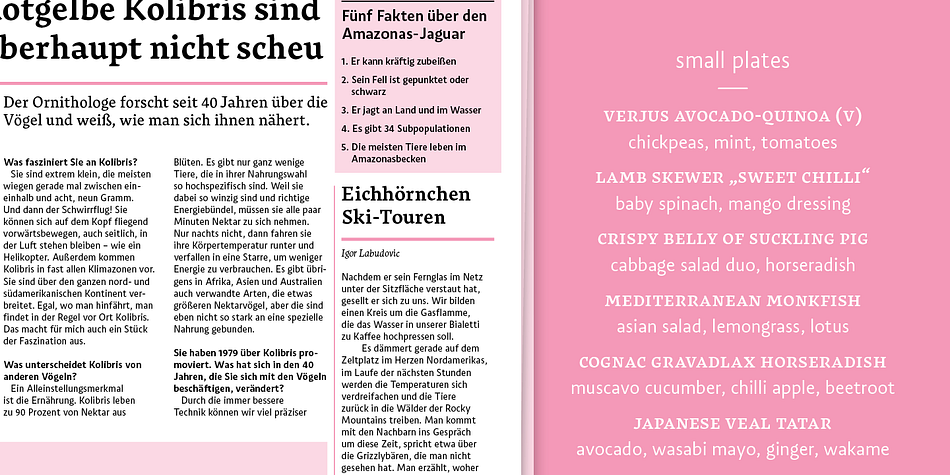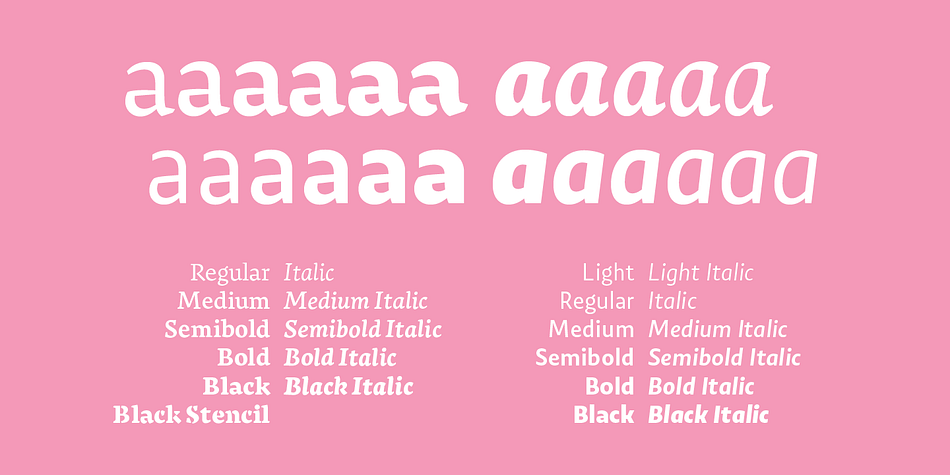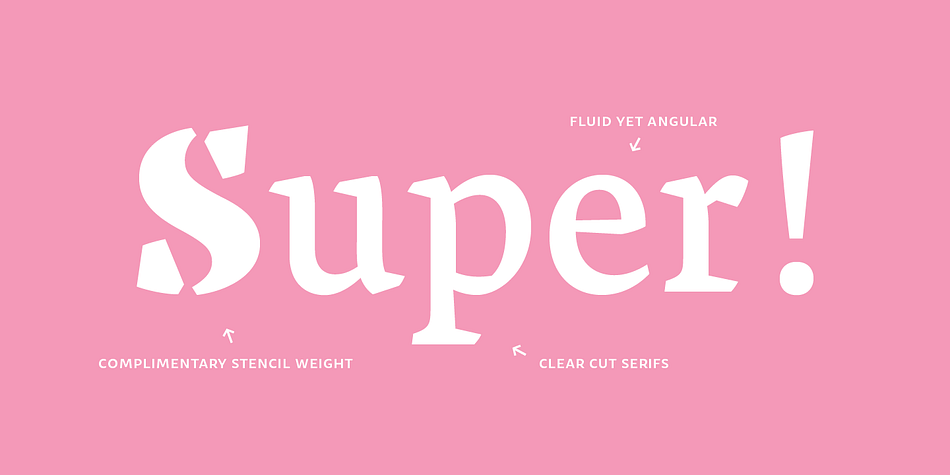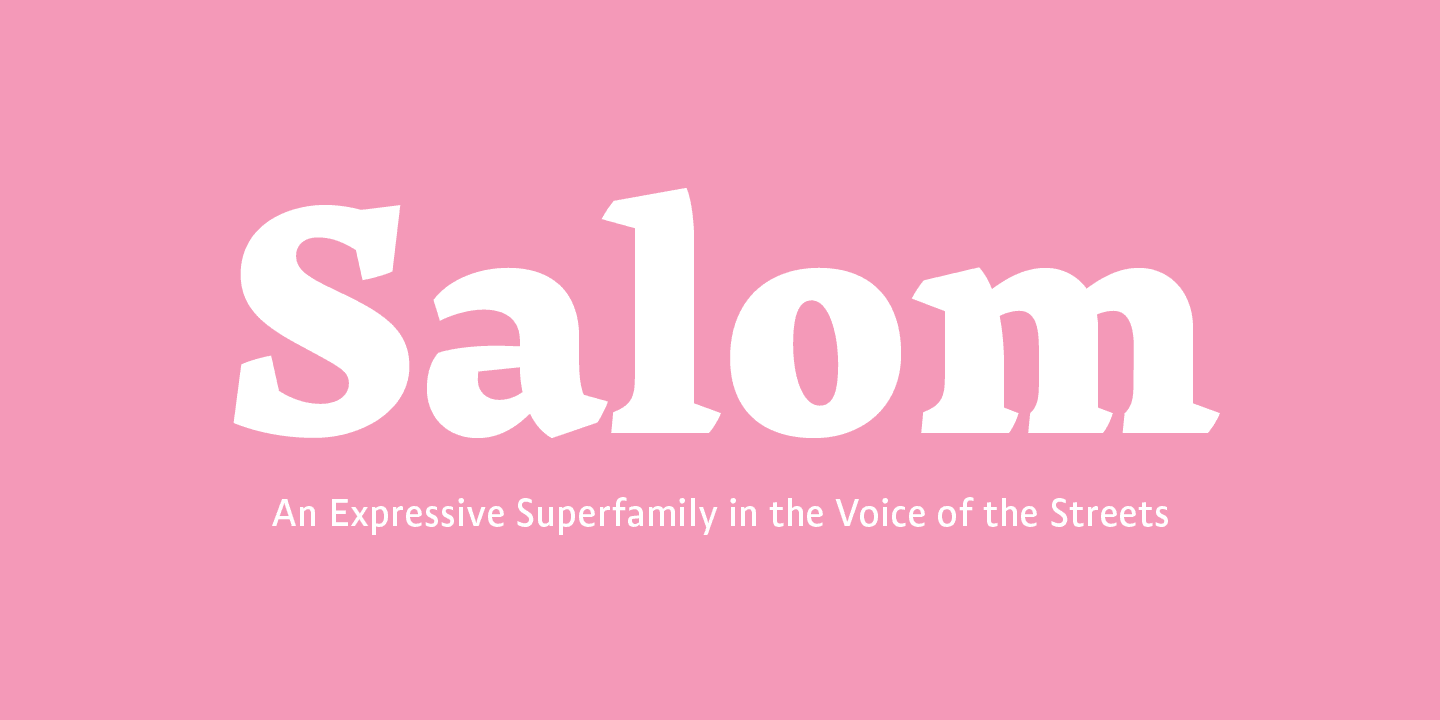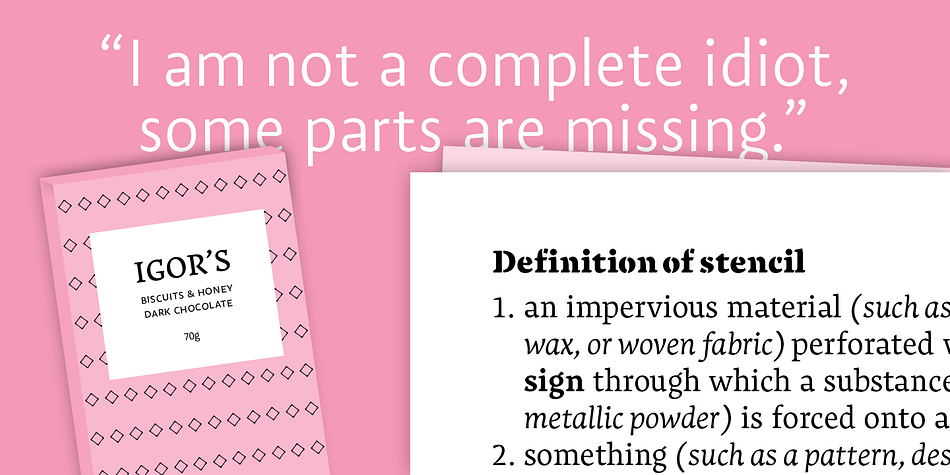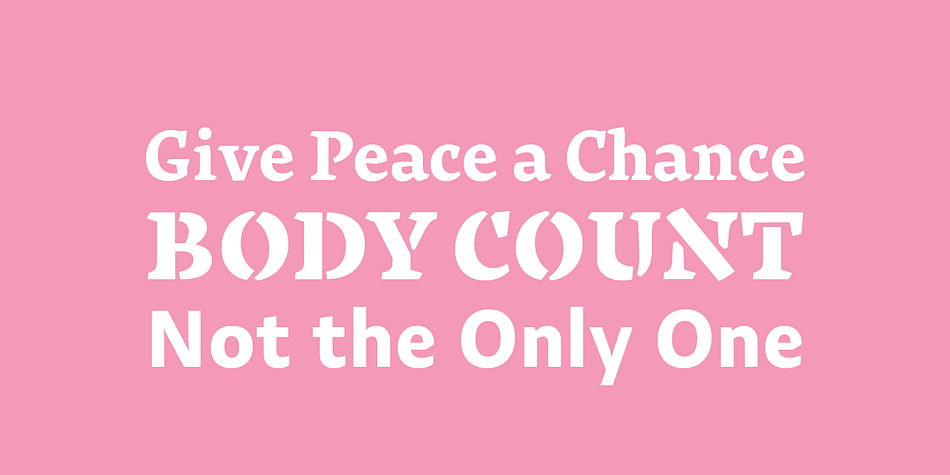
Salom is a sans serif, serif and stencil font family. This typeface has twenty-three styles and was published by Schriftlabor.
Salom was designed by Austrian type designer Igor Labudovic during his year at Reading University. Besides Latin, it originally included Arabic and Hebrew. The peaceful coexistence of both writing systems in his fonts led him to combine the words Salaam and Shalom to the font family name.
Salom’s sibling, Salom Sans, features the same letter proportions and therefore allows a rich spectrum of diverse typography, yet keeping the harmony between all styles. The sans has an additional light weight, while the serif comes with an expressive stencil style.